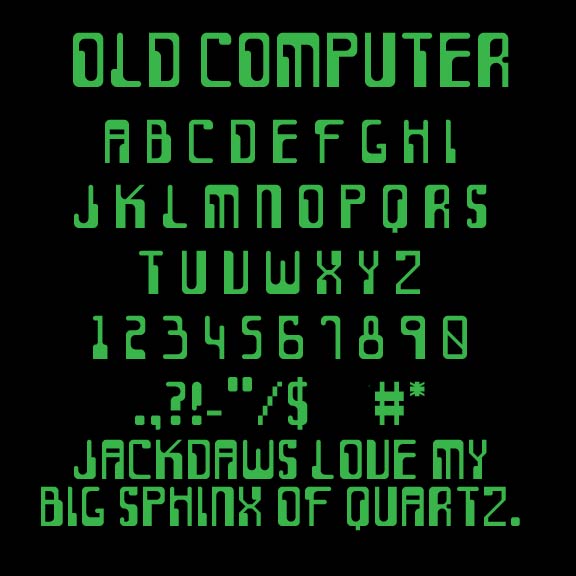
• Being fascinated with old technology, I decide to make a typface reflectant of old computers used during the mid to late 20th century. I picture this font being typed with the clicky sounds of mechanical keyboards, and I hope so will you.